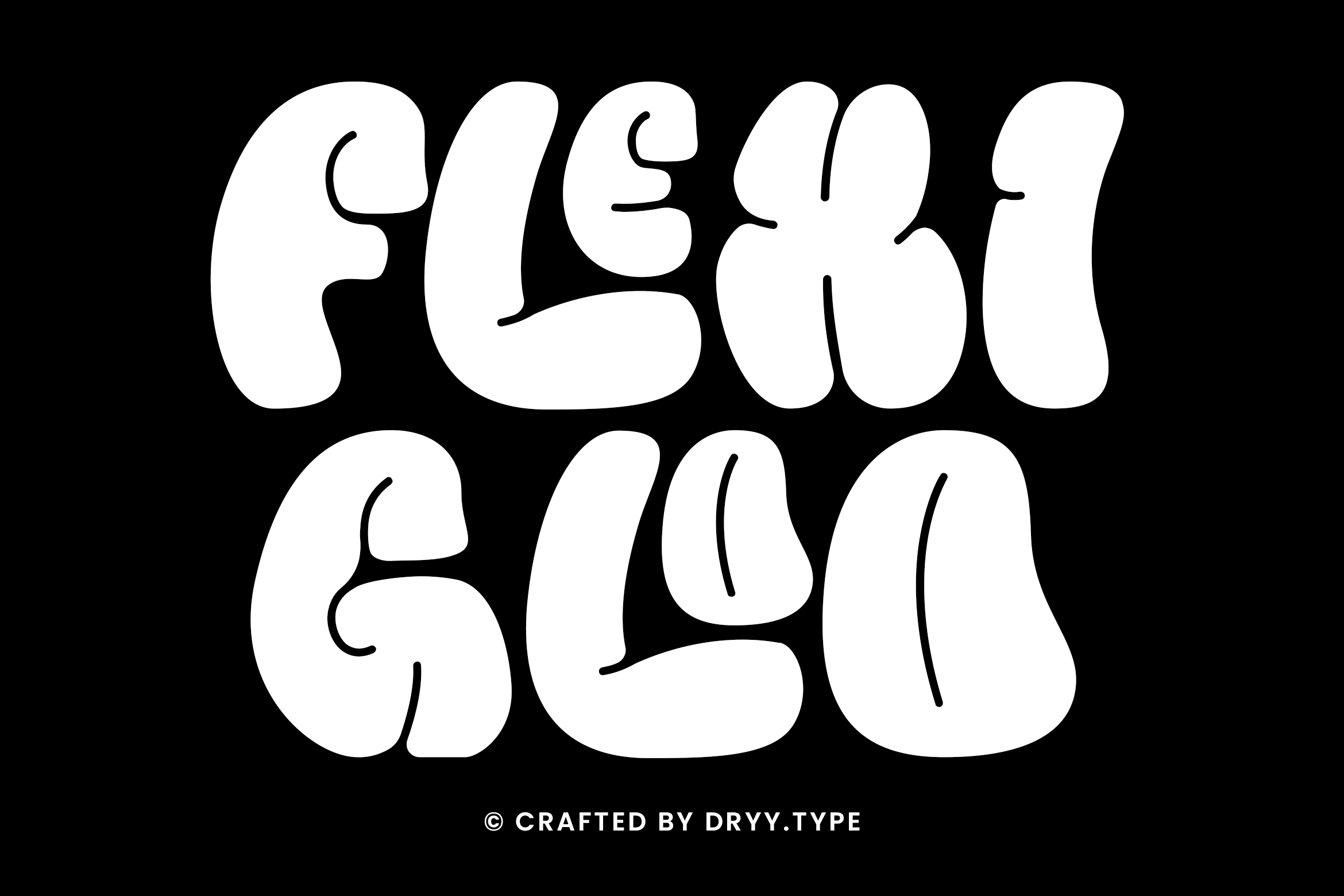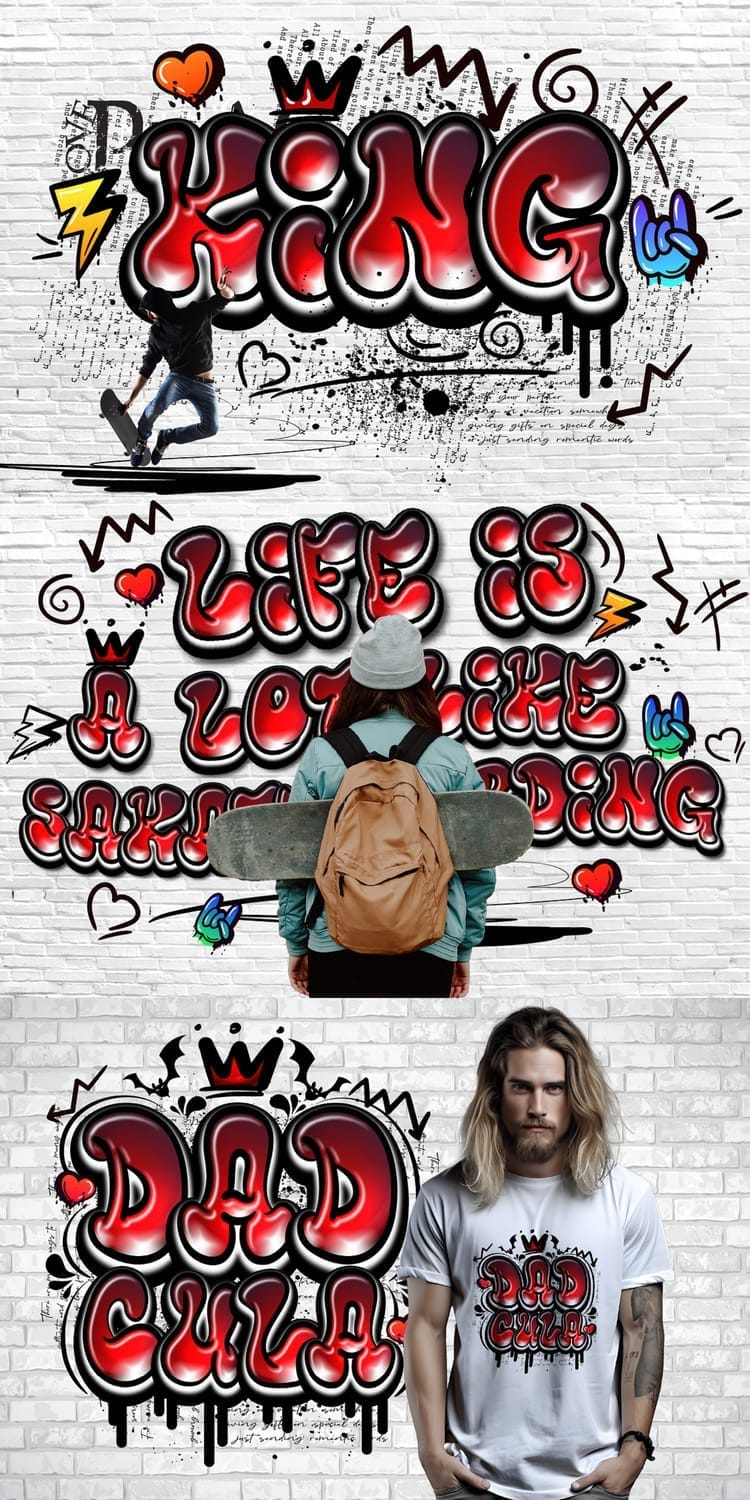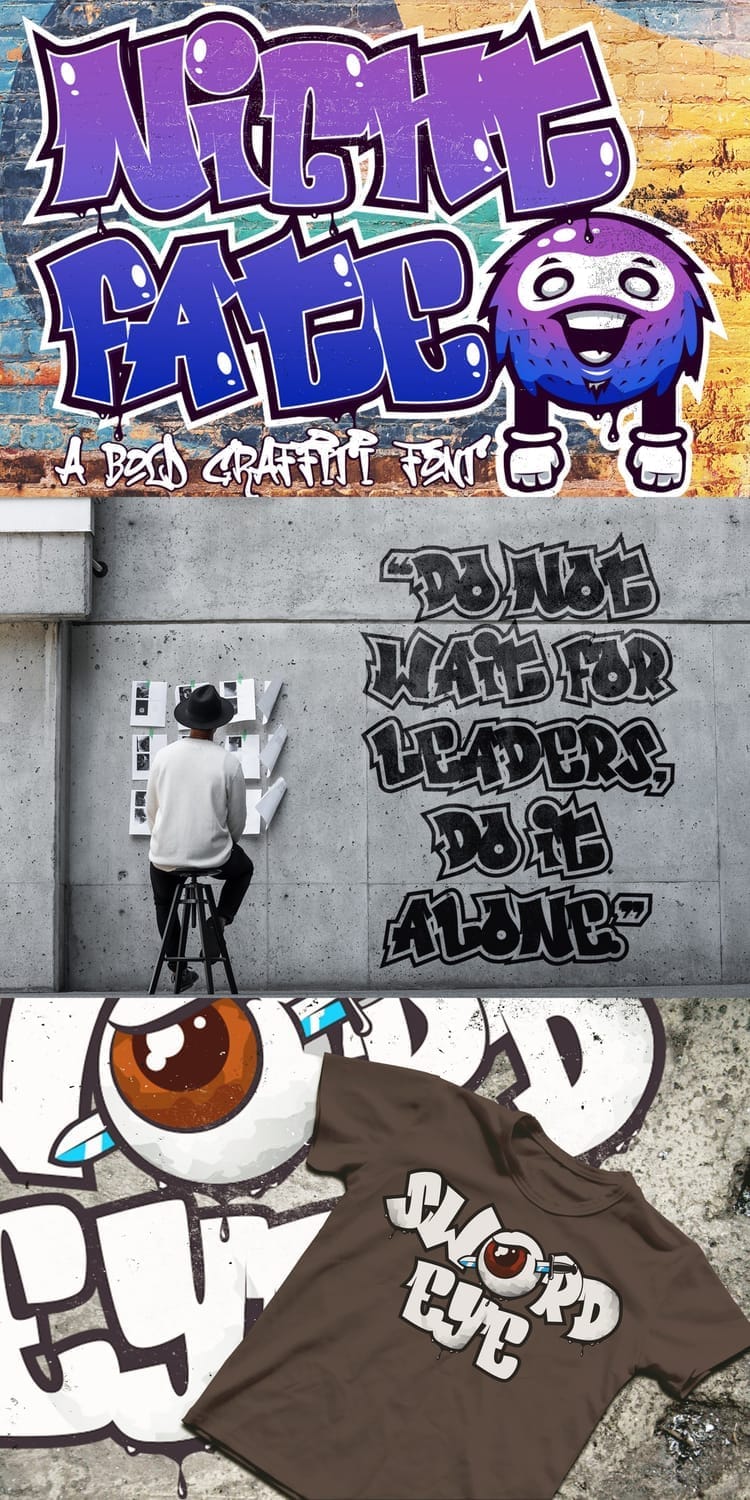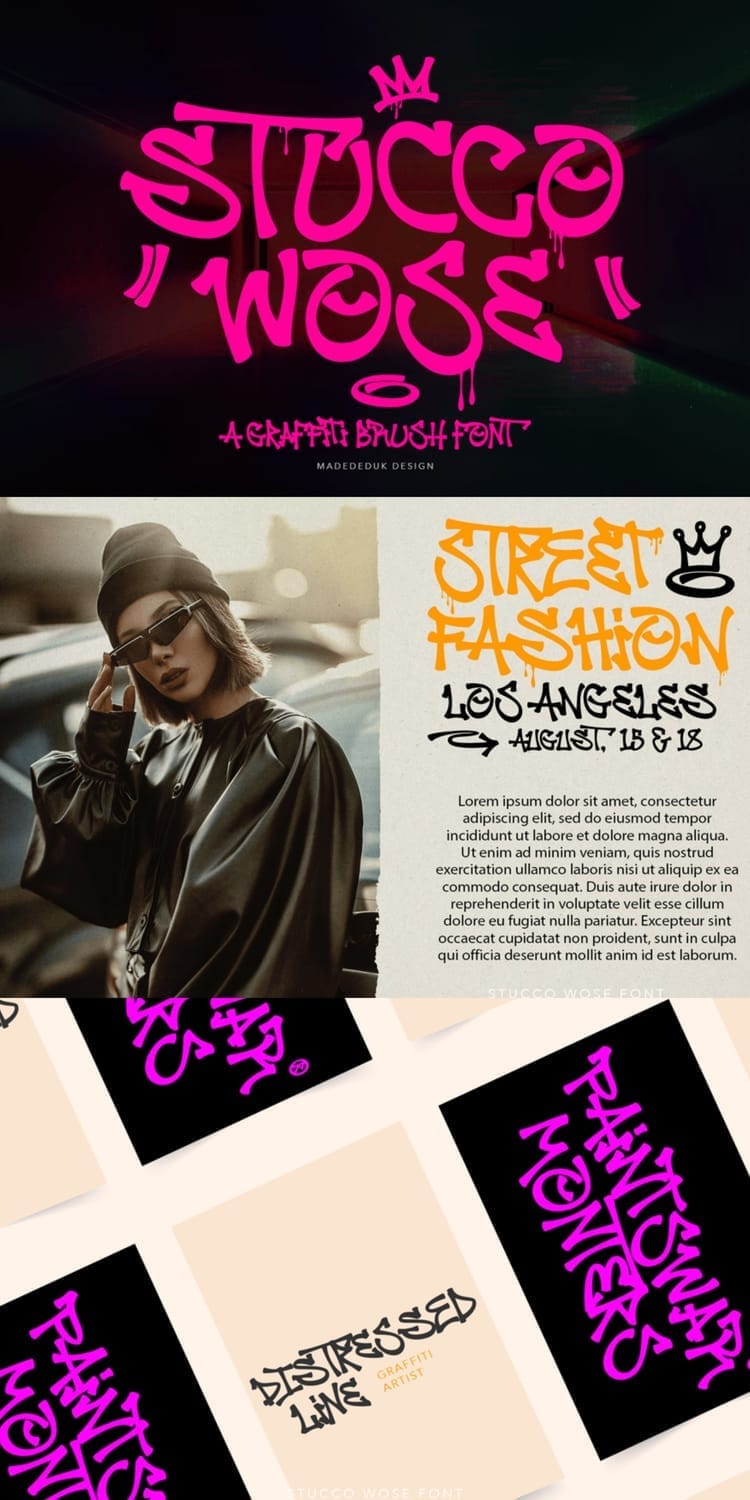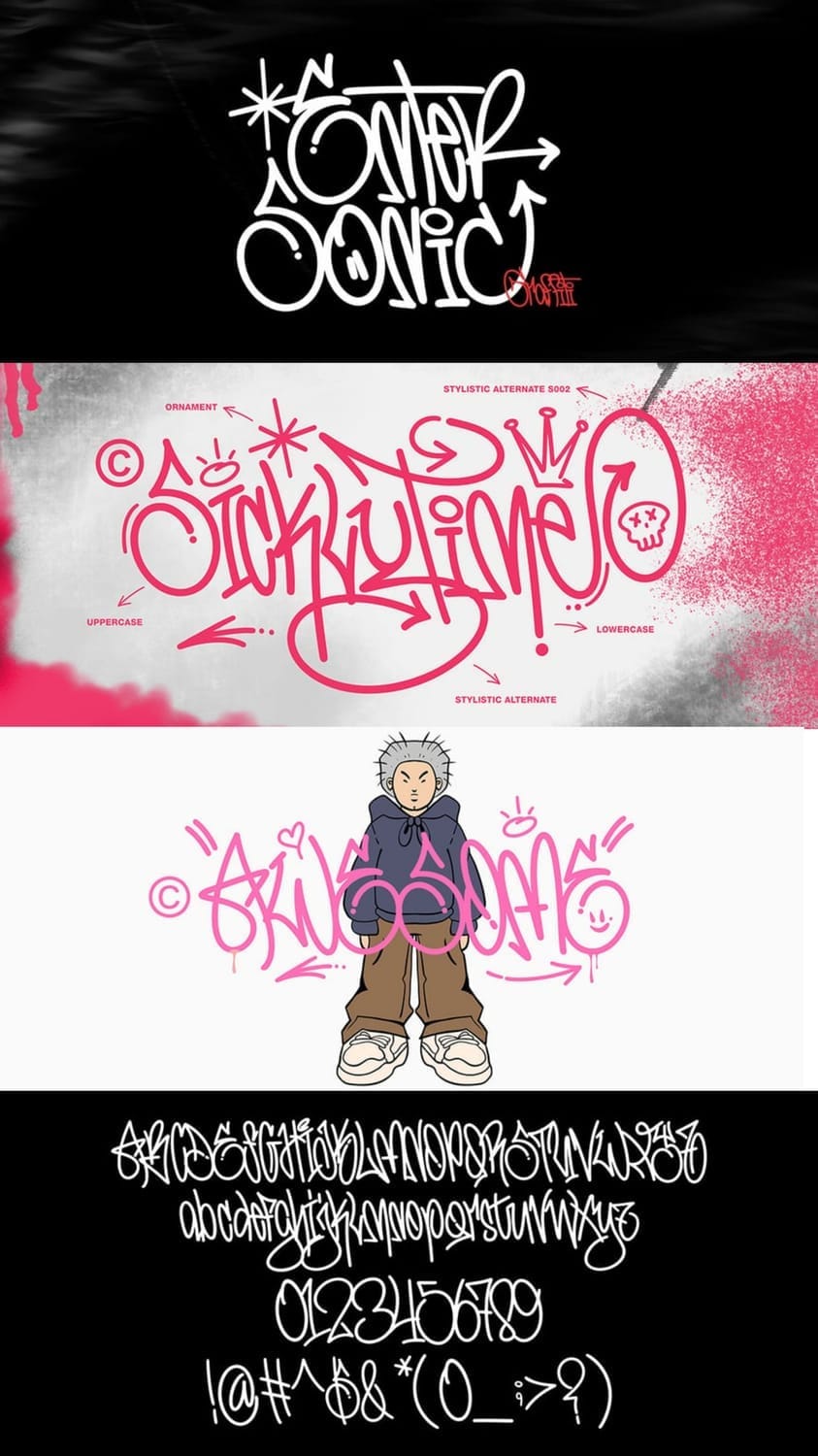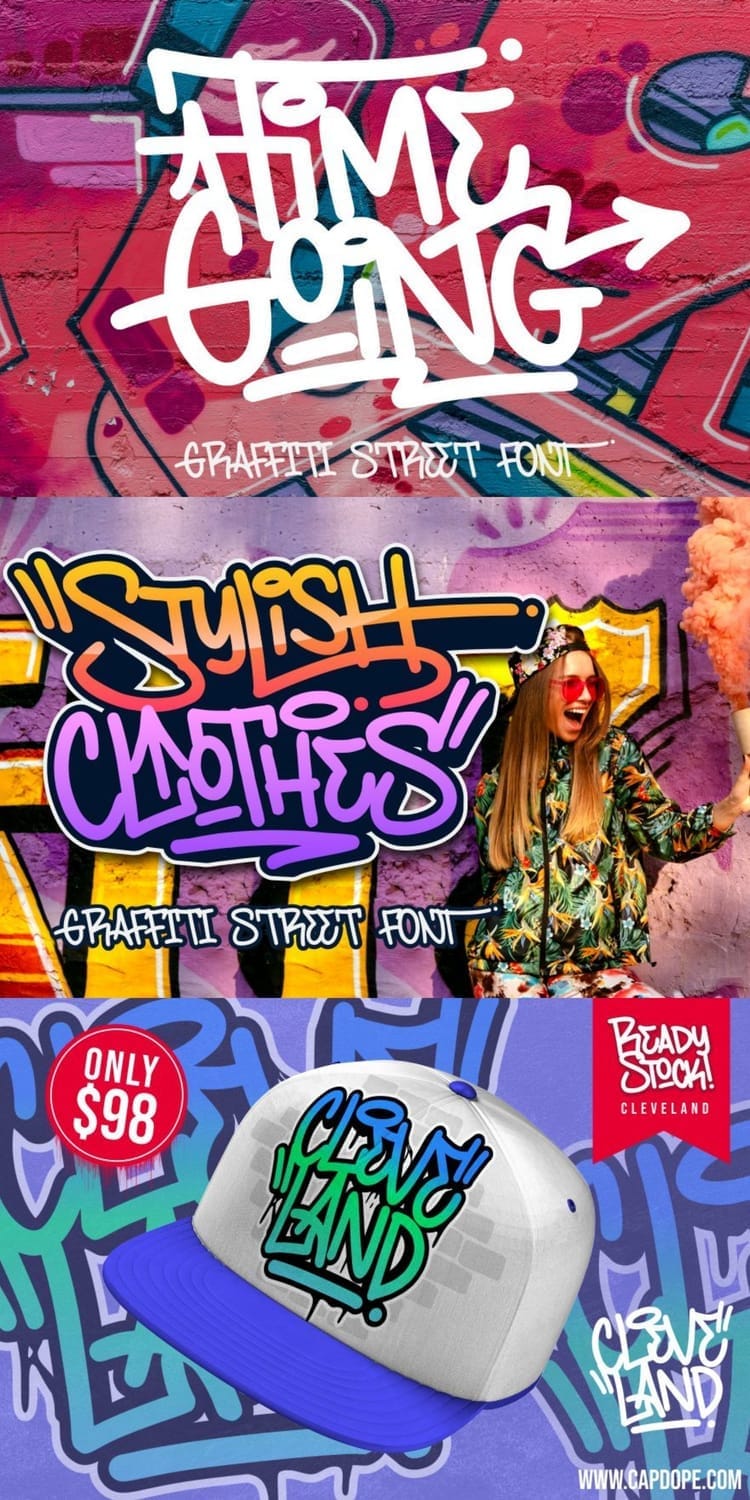
Looking to inject some raw, urban energy into your designs? Tired of the same old fonts that just don't stand out? You've come to the right place.
Graffiti fonts are more than just squiggly letters; they're a powerful form of expression. They capture the rebellious spirit, raw creativity, and dynamic movement of street art, making them perfect for projects that need to grab attention. Whether you're designing a t-shirt, a concert flyer, a social media graphic, or even a brand logo, the right graffiti font can completely transform your work.
But with so many options out there, it can be tough to find the one that fits your vision. That's why we've scoured the web to bring you a curated list of the best graffiti fonts available. From classic wildstyle throw-ups to clean tag-inspired scripts, this list has something for every project. Get ready to ditch the boring and unleash your inner artist—your next design is about to pop.
Graffiti isn't a single style; it's a diverse art form with many different approaches, each with its own history and feel. Knowing these styles can help you pick the perfect font for your project.
This is the most complex and intricate style of graffiti. Characters are highly stylized, intertwined, and often have arrows, spikes, and other decorative elements. It's often difficult for outsiders to read but is a hallmark of highly skilled artists. Use Wildstyle fonts when you want an authentic, raw, and very dynamic look.
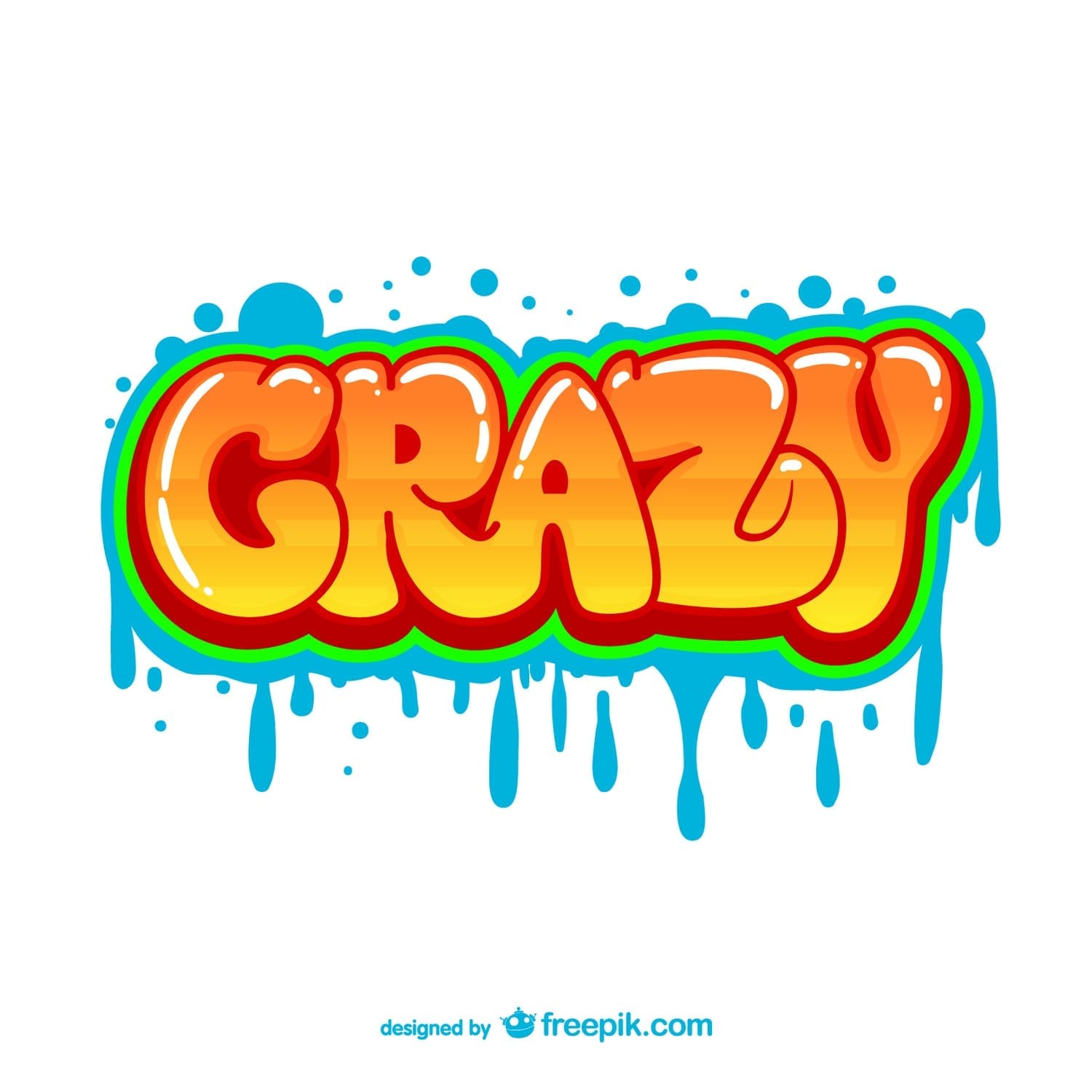
As the name suggests, this style features rounded, bubble-like letters that are often fat and cartoonish. It's one of the earliest and most recognizable forms of graffiti. Bubble fonts are playful, friendly, and have a softer, more inviting feel compared to other styles. They work great for fun, lighthearted projects.
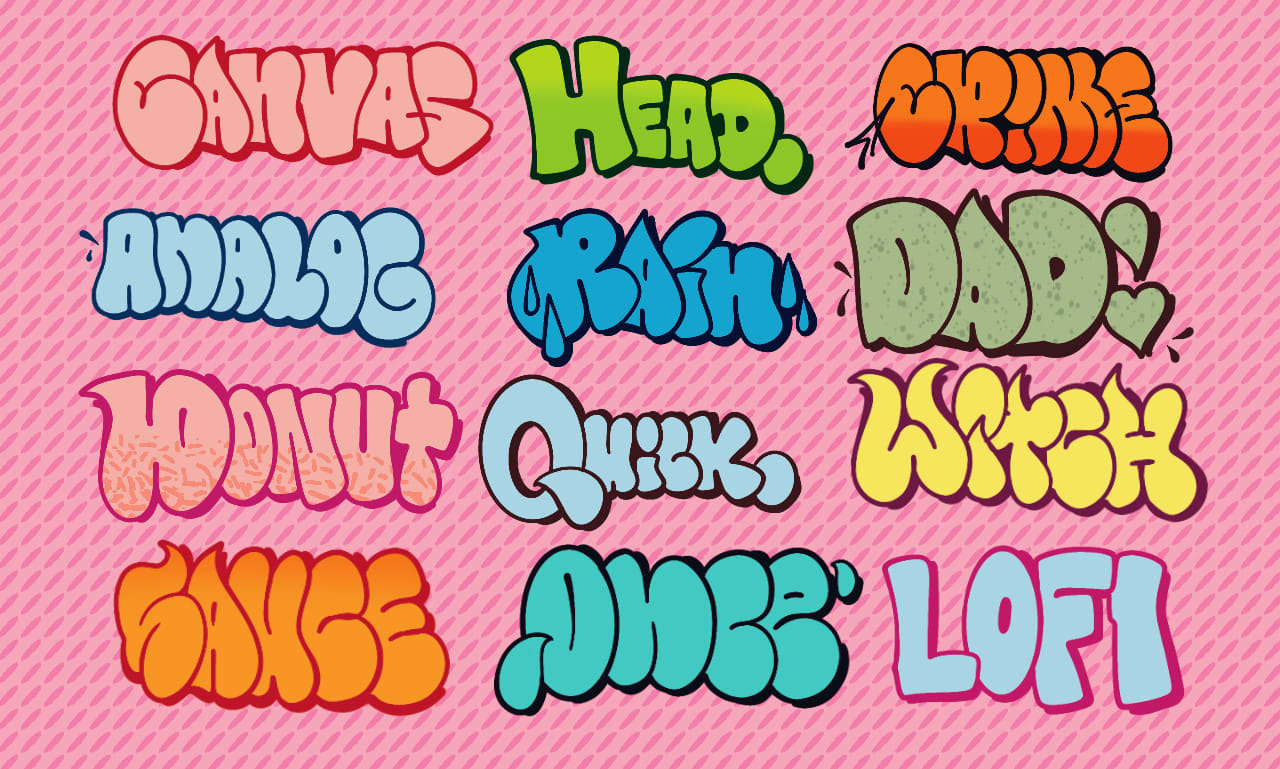
A step up from a simple tag, a "throw-up" is a quickly executed, two-letter piece, often with a simple outline and fill. They're more rushed and less detailed than Wildstyle. Throw-up fonts have a fluid, rounded, and spontaneous look that gives a sense of urgency and movement.
A tag is the most basic form of graffiti—an artist's signature or stylized name. Tags are often quick, single-line designs that have a lot of personality in their unique flow and flourishes. Tagging fonts are perfect for a minimalist, personal, or raw street-art aesthetic.
This style uses large, blocky, and usually simple letters to cover a big area quickly. Think of them as giant, legible letters meant to be seen from a distance, like on the side of a train car. Blockbuster fonts are bold, commanding, and perfect for projects that need to make a powerful, no-nonsense statement.
Now that you have a better understanding of the different styles of graffiti, you're ready to see them in action. This is the heart of our list—a curated selection of 25 fonts that capture the essence of street art and will give your designs that authentic, urban edge.
For each font, we've provided a brief description of its style, its best use cases, and where you can get your hands on it. So, let’s dive in and find the perfect font to make your next project truly stand out.
Snikers embodies the raw energy of urban graffiti with its bold, realistic calligraphy style. Crafted by an artist with real graffiti experience, it's designed for legibility while maintaining street art aesthetics. Featuring all caps, numbers, and punctuation, it's perfect for adding an authentic edge to your designs.
Shizzle brings the essence of graffiti marker art to your designs. Its letterforms, crafted with downward and upward strokes, exude the spirit of Hip Hop and Rap. Inspired by Snoop Dogg's iconic "izzle" slang, Shizzle offers typographic harmony for logos, social media, and more.
Wildwick is a bold handwritten graffiti font perfect for titles, logos, and more. Its expressive style adds flair to any project, from branding to social media. With multi-lingual support, it offers versatility for various design needs. Enjoy its playful vibe and urban aesthetic to elevate your creations.
Stylistic brings a fresh twist to street graffiti, blending edgy vibes with soft femininity. Perfect for logos, quotes, and more, it adds a chic touch to your designs. With opentype features like ligatures and alternates, plus 52 doodles for added flair, it's a must-have for any creative project.
Dopestar is the epitome of urban cool, a heavy graffiti font that adds a bold edge to any project. Despite its streetwise vibe, it remains remarkably legible, making it perfect for display purposes. With a full set of characters and various variants, Dopestar offers versatility for designers seeking that authentic urban aesthetic.
Trisula Street is a monoline graffiti font that is perfect for graffiti-inspired designs, streetwear, car decals, product packaging, and more. Its balanced and flowing style adds an artistic and urban touch to any project.